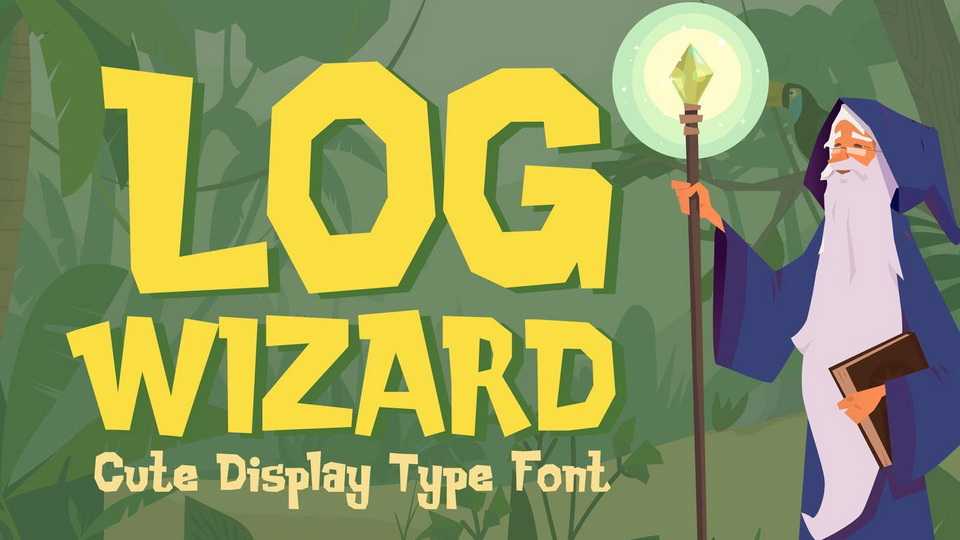
Download Log Wizard font, a cute kids typeface. A world is full of enchanting spells and glittery sparkly stars. The Wizard of the imagination is coming to your world.